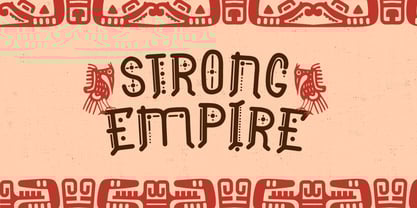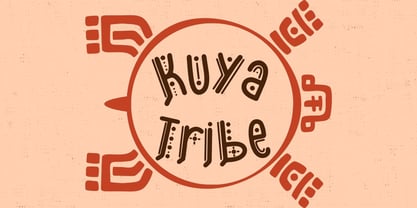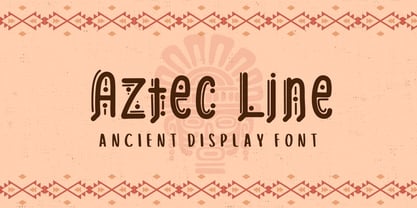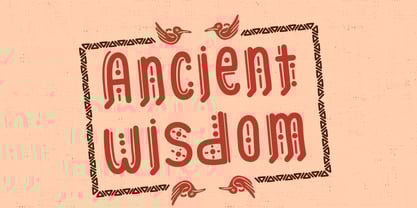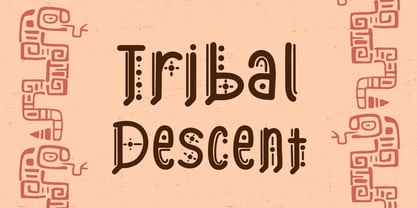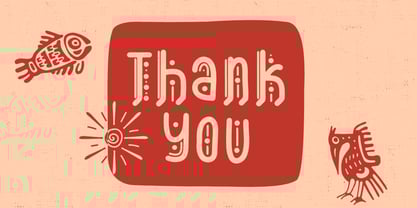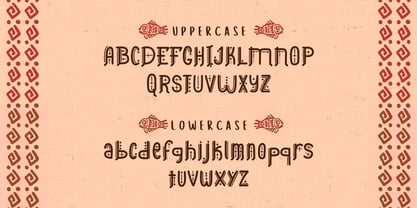
Aztec Line
by Attype Studio
The Aztec Line Font Family was designed by Fadli Ramadhan Iskandar and published by Attype Studio. Aztec Line contains 1 styles. More about this family
Aztec Line – Ancient Display Font
Step into the grandeur of ancient civilizations with Aztec Line, a striking ancient display font inspired by the rich artistry of the Aztec culture.
Perfect for historical branding, adventure posters, tribal-themed merchandise, museum exhibits, and epic game designs, Aztec Line brings a sense of power, tradition, and untamed spirit to your typography.
Designers: Fadli Ramadhan Iskandar
Foundry: Attype Studio